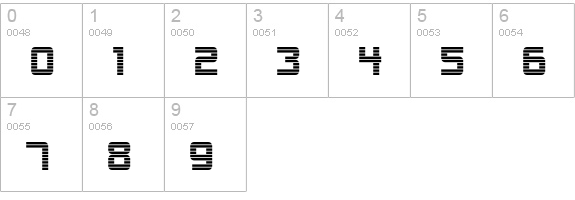
Alien Encounters font is a futuristic and otherworldly typeface that will transport your designs to a realm beyond the stars. With its unique and intriguing glyphs, this font captures the essence of extraterrestrial encounters and sci-fi adventures. Whether you're creating a poster for a space-themed event or designing a logo for a cutting-edge technology company, Alien Encounters font will add a touch of cosmic flair to your projects. The best part? Alien Encounters font is completely free to download at FontsMarket.com, making it accessible to all designers looking to add a touch of intergalactic magic to their work. Embrace the unknown and unleash your creativity with Alien Encounters font today!